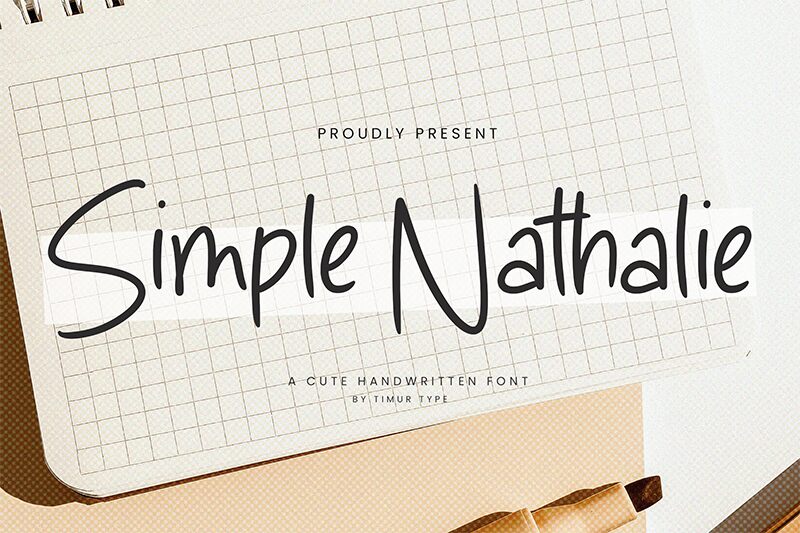
Simple Nathalie font is a free handwritten font designed by Timur Type. This charming and relaxed typeface combines an inviting, friendly feel with modern accents, making it an approachable choice packed with charm. It’s informal while at the same time being highly versatile, bringing a warm touch to the text.
Versatile and organic, Simple Nathalie is an inviting typeface carrying a personal touch. With its informal and expressive nature, this typeface is perfect for a wide range of applications. It can be used in diaries, journals, magazines, comics, custom t-shirts, apparel designs, interior design blog posts, social media, book covers, packaging designs, and professional typography arts.
Simple Nathalie is a cute handwritten font introduced by Timurtype Studio. This font is a charming and playful choice for your design projects. With its soft and delicate letterforms, it brings a touch of cuteness and innocence. The graceful and fluid strokes give the Simple Nathalie font a gentle and approachable aesthetic, perfect for adding a sweet and friendly touch to your branding materials, greeting cards, and children's books. Whether you're aiming for a whimsical and romantic feel or a fun and cozy vibe, the Simple Nathalie font offers versatility and warmth. Embrace the cute energy of the Simple Nathalie handwritten font and give your designs a delightful and endearing personality.
Simple Nathalie Font also supports multilingualism and features a full set of standard alphabet and punctuation.